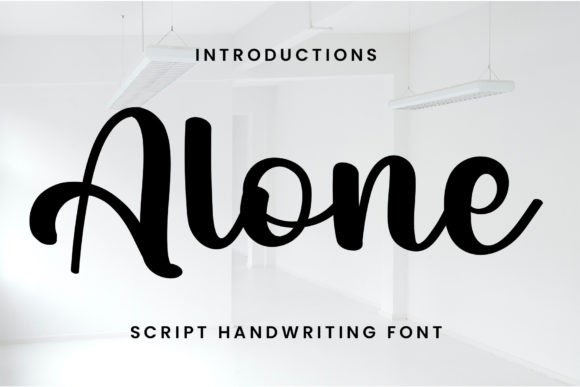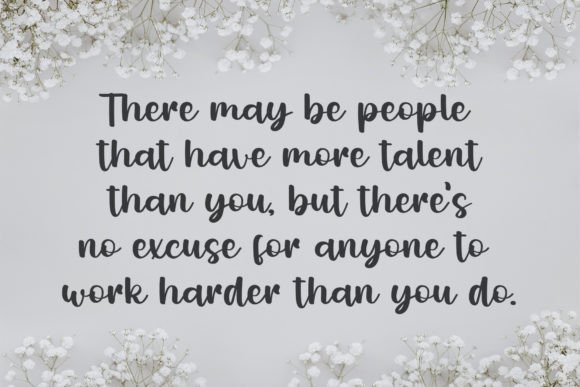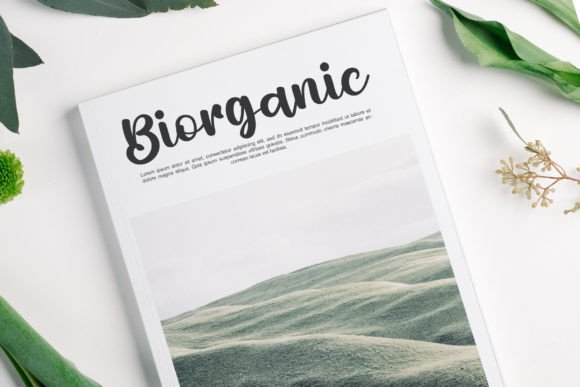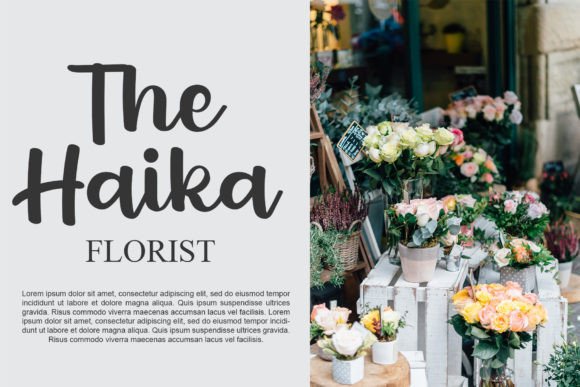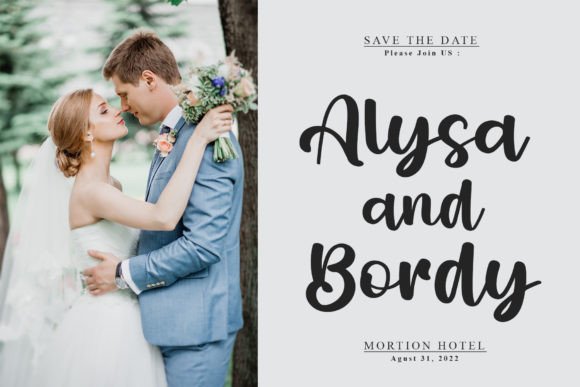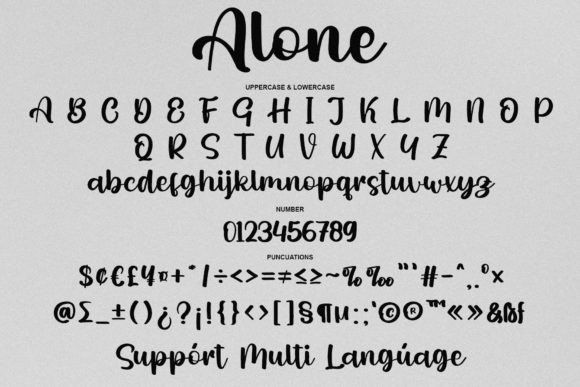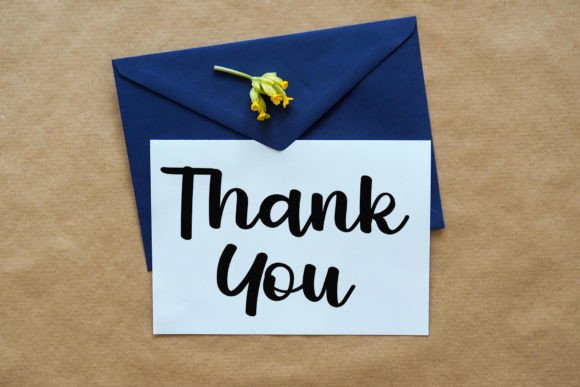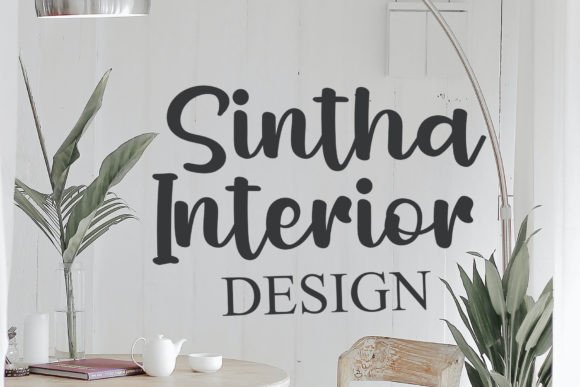
Alone Font
About Alone Font
“Alone” is a beautiful and refined handwritten font that embodies a sense of class and modernity. With its elegant style, “Alone” is a versatile choice suitable for a wide range of design applications, including logos, branding, invitations, stationery, wedding designs, social media posts, and much more.
The charm of “Alone” lies in its ability to convey a sense of sophistication and timeless beauty. The font’s graceful script and modern design create an inviting and classy aesthetic that can enhance various design projects.
One of the standout features of “Alone” is its adaptability and accessibility. Being PUA encoded means that you can easily access all the remarkable glyphs and ligatures, offering you greater creative freedom in your designs.
When you incorporate “Alone” into your designs, you can expect your projects to exude a sense of refinement and elegance. This font has the power to create a memorable and captivating visual experience for your audience, whether you’re designing for print or digital media.
In summary, “Alone” is not just a font; it’s a design asset that can elevate your creative projects with its beauty and versatility. Its classy and modern style, combined with its accessibility through PUA encoding, make it a valuable addition to your design toolkit. Feel confident in using “Alone” to create stunning designs that leave a lasting impression!